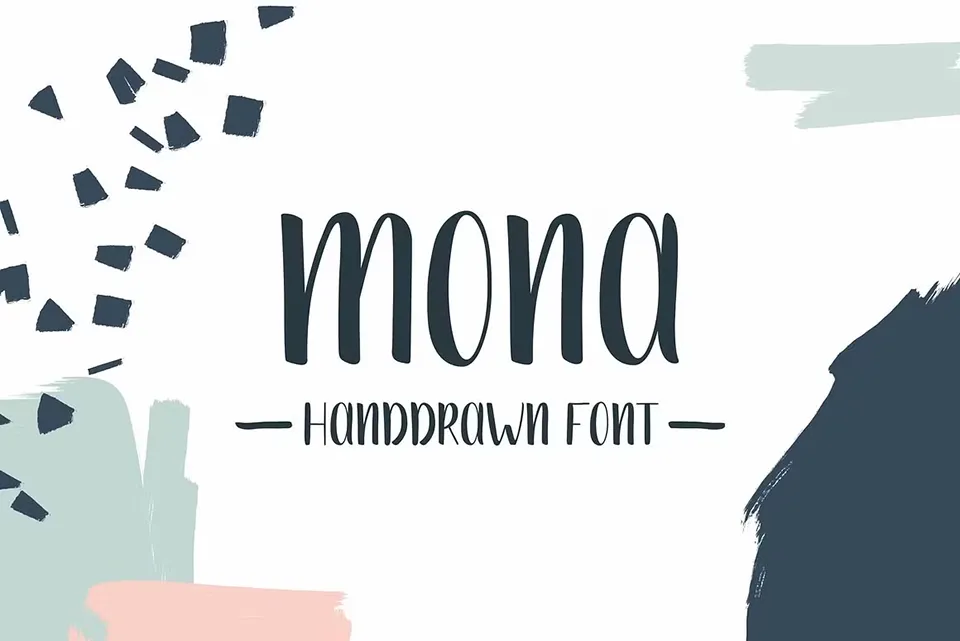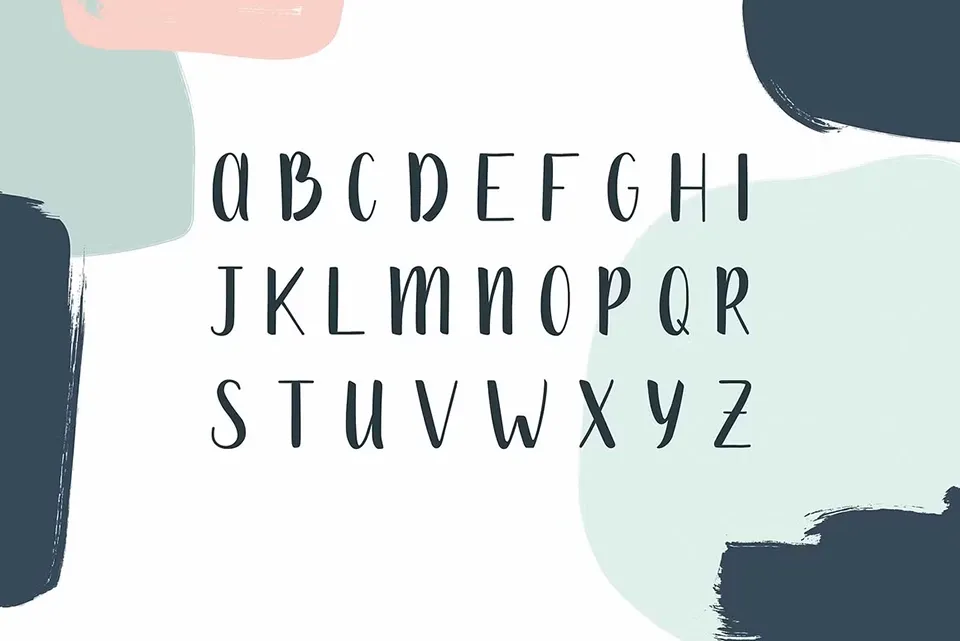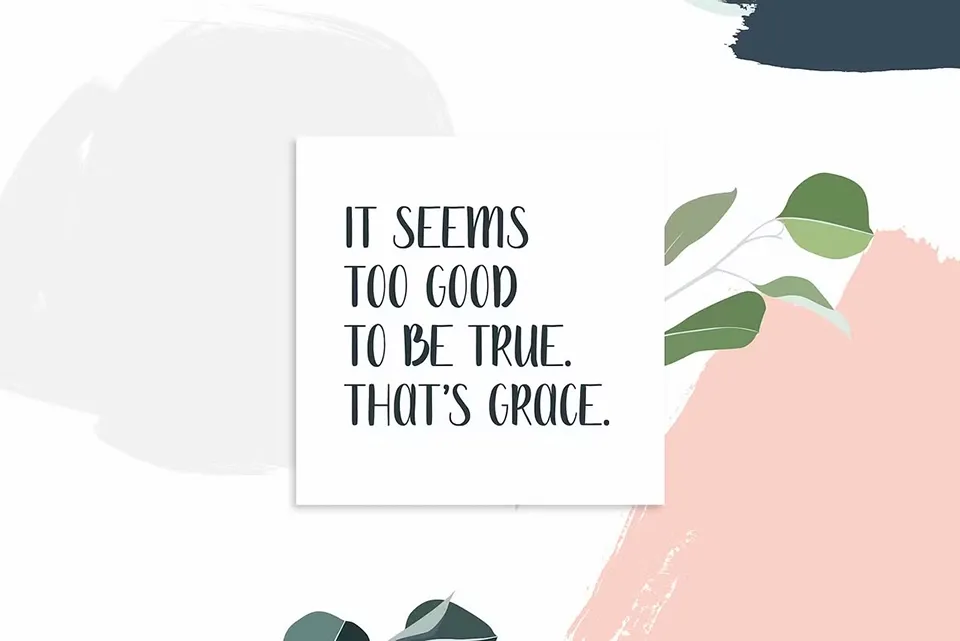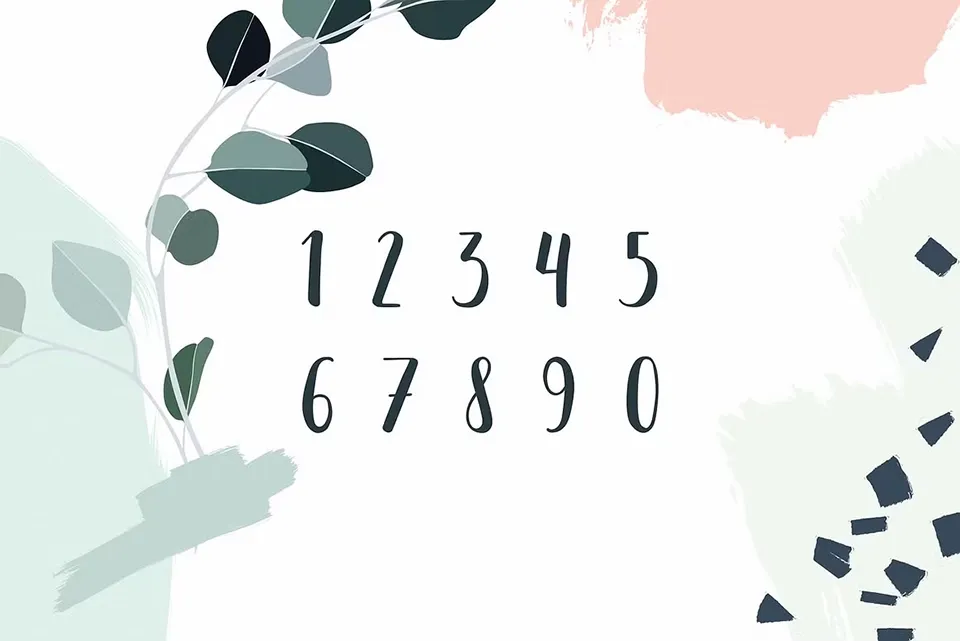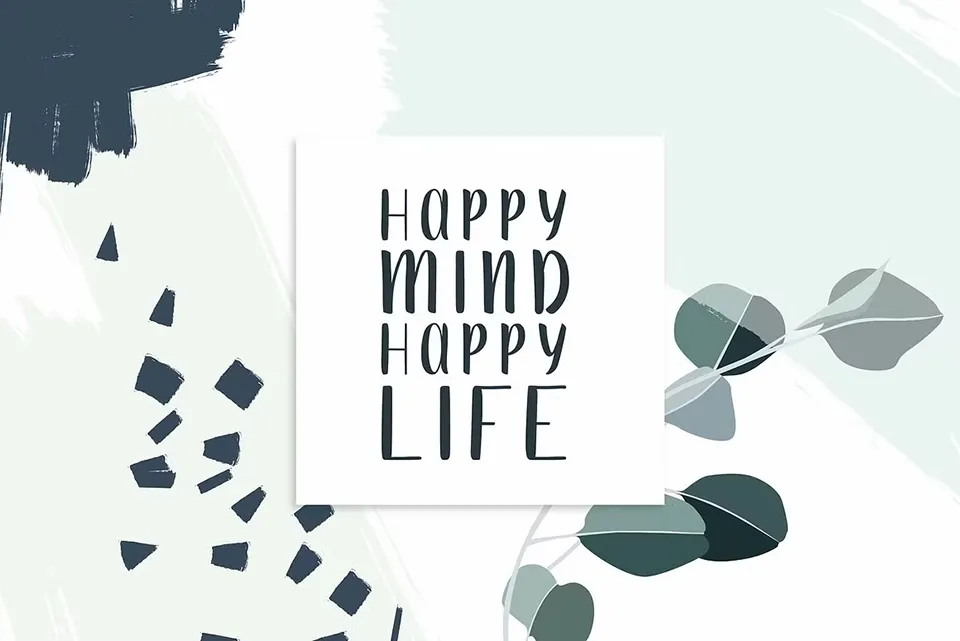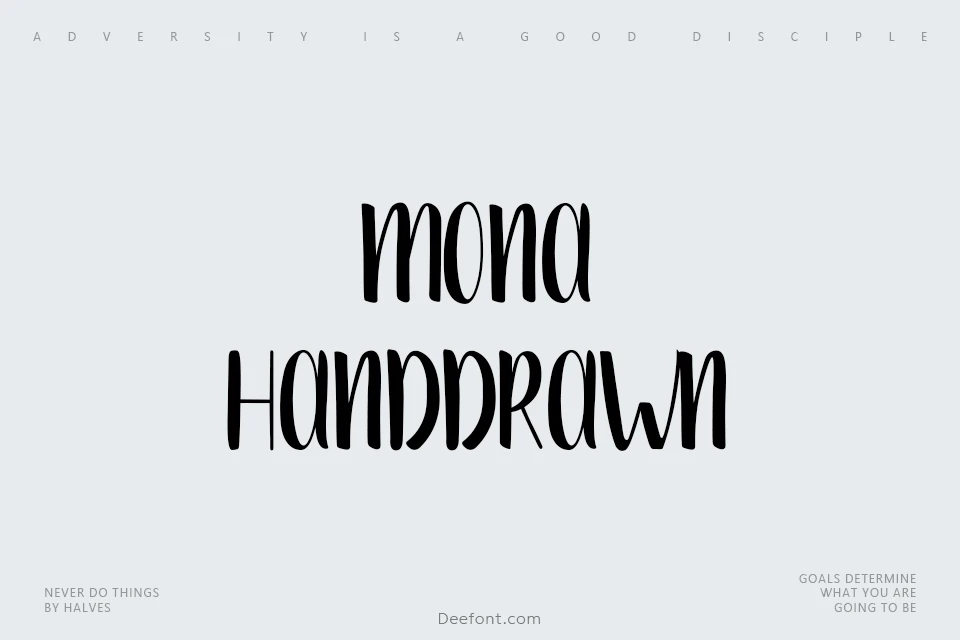
Mona Handdrawn Font
Mona Handdrawn Font is created by WildOnes Design. This is a hand-drawn brush font primarily featuring uppercase letters. Its defining characteristic is the dynamic contrast between thin and bold lines within each character. Mona is designed as a decorative font, making it highly effective for creating distinctive identities, eye-catching logos, impactful posters, and unique packaging designs. It includes uppercase letters, numbers, and symbols, offering a contemporary, hand-drawn aesthetic perfect for projects needing a strong visual personality.